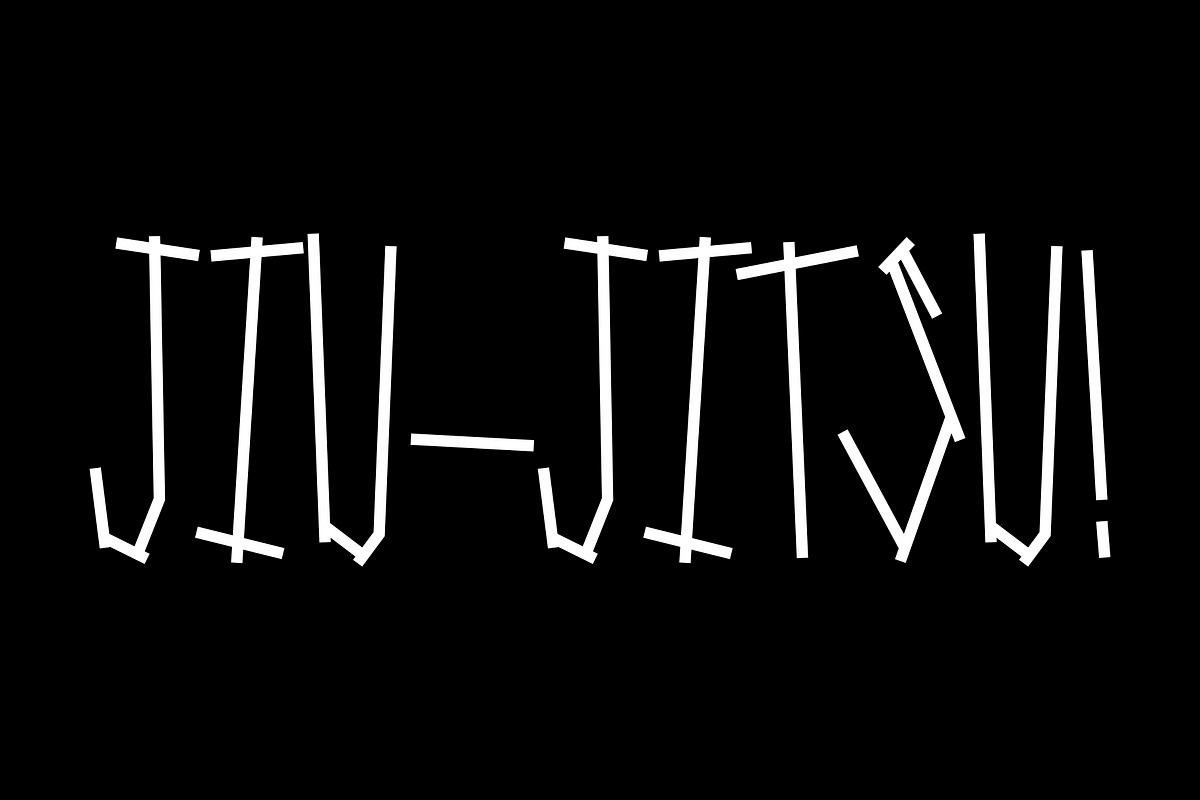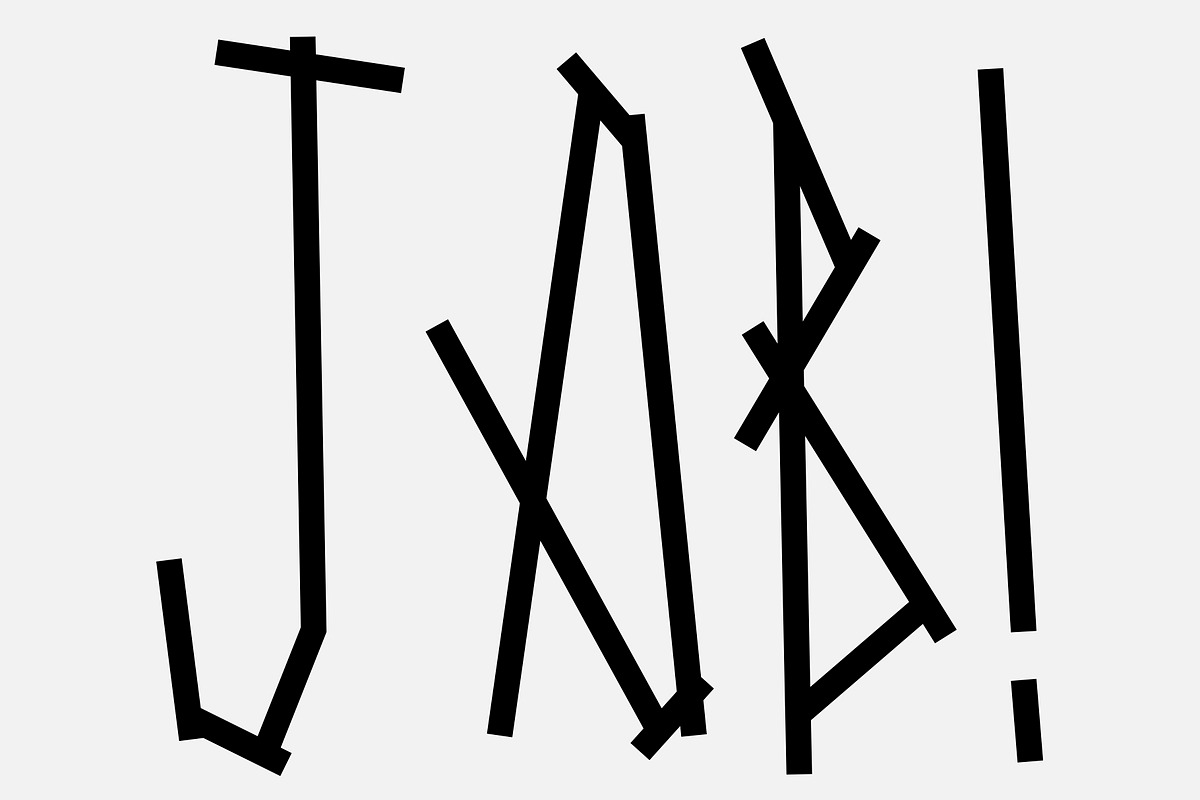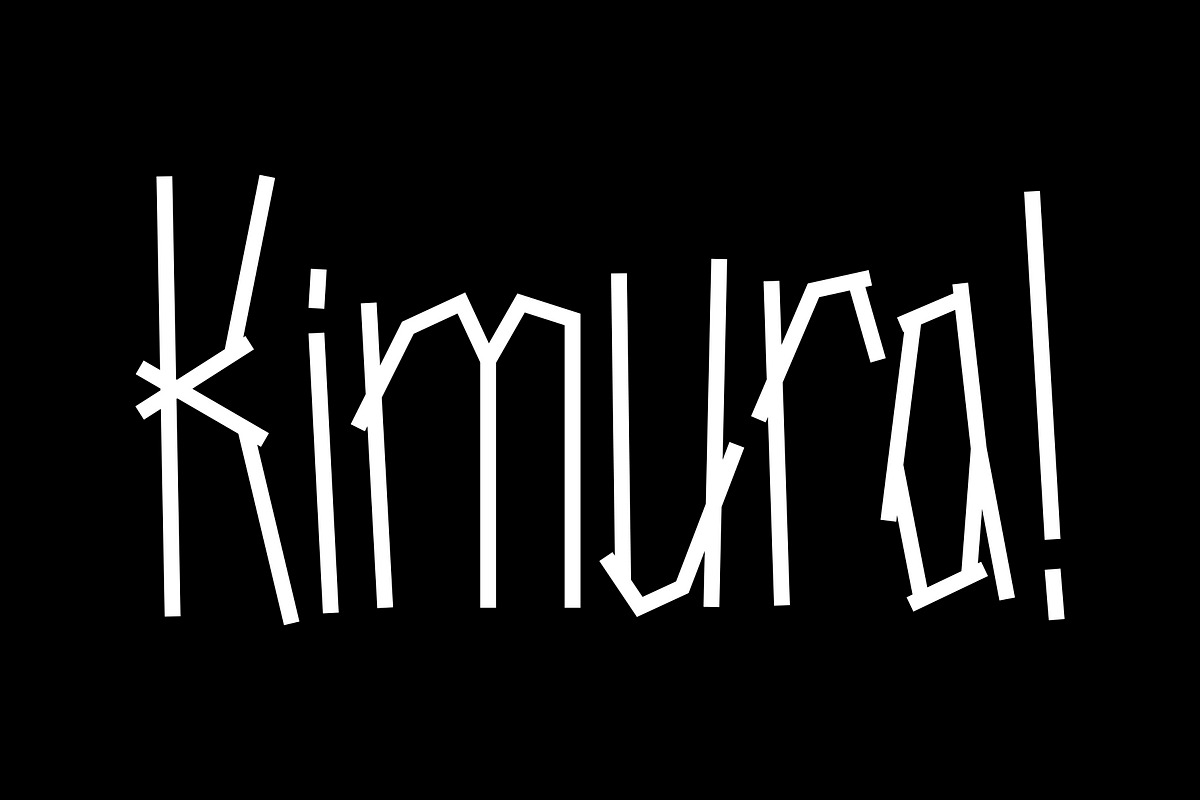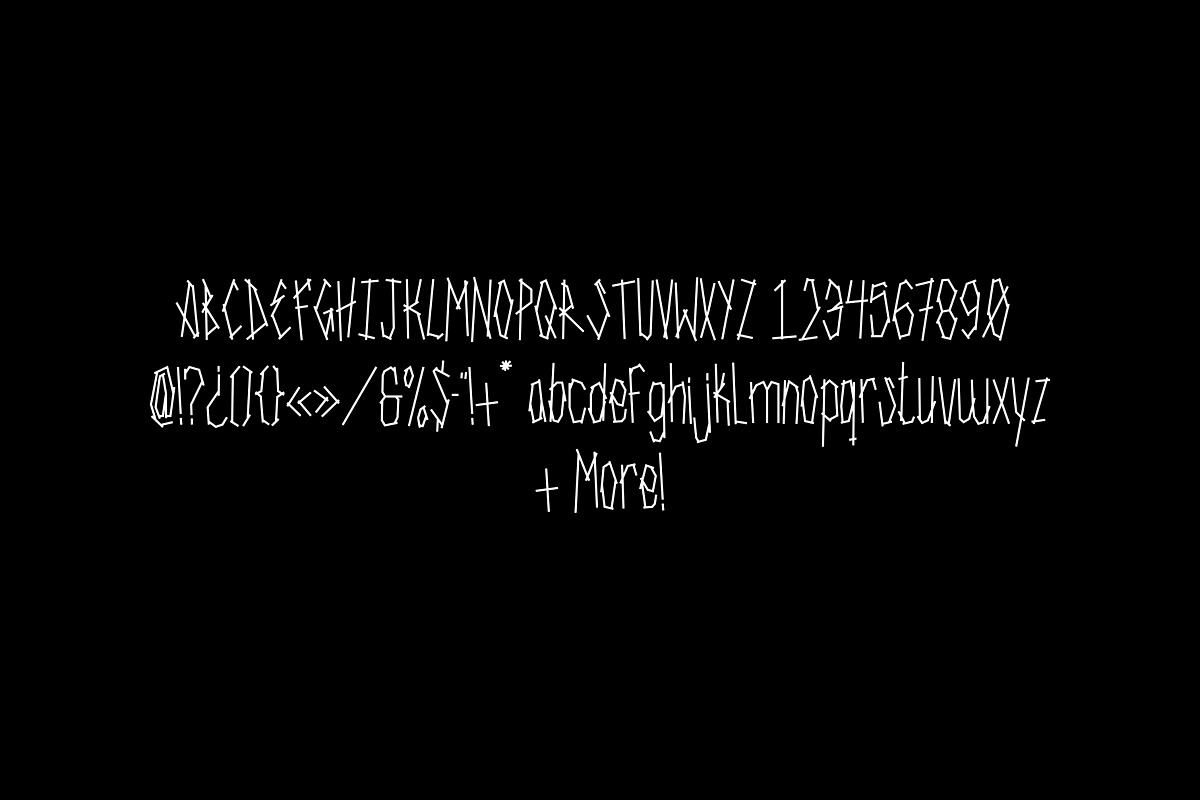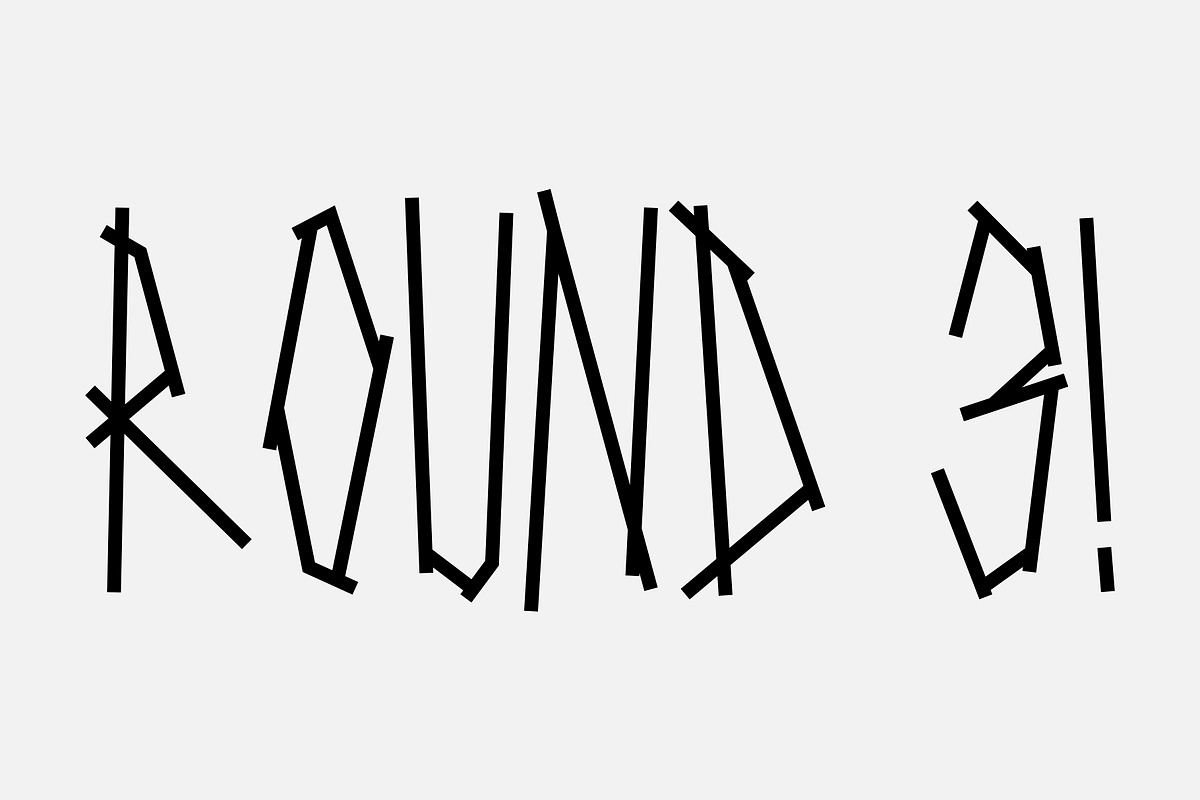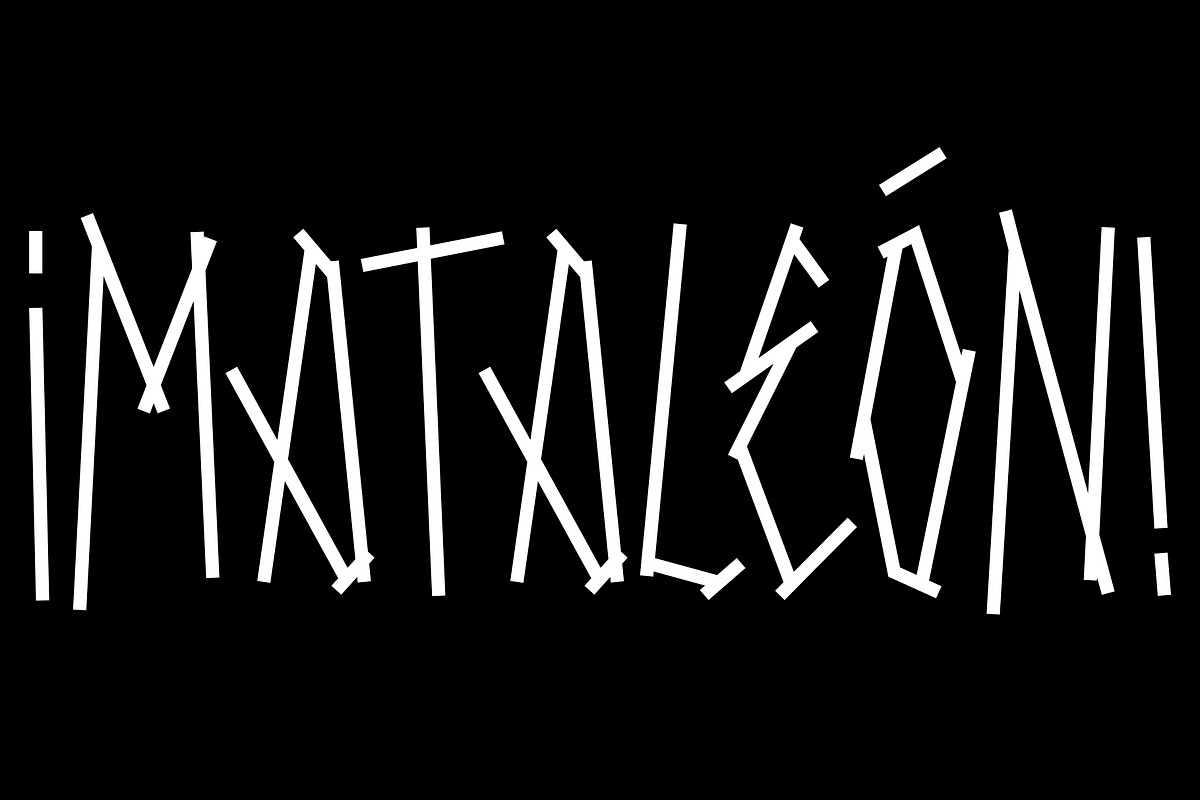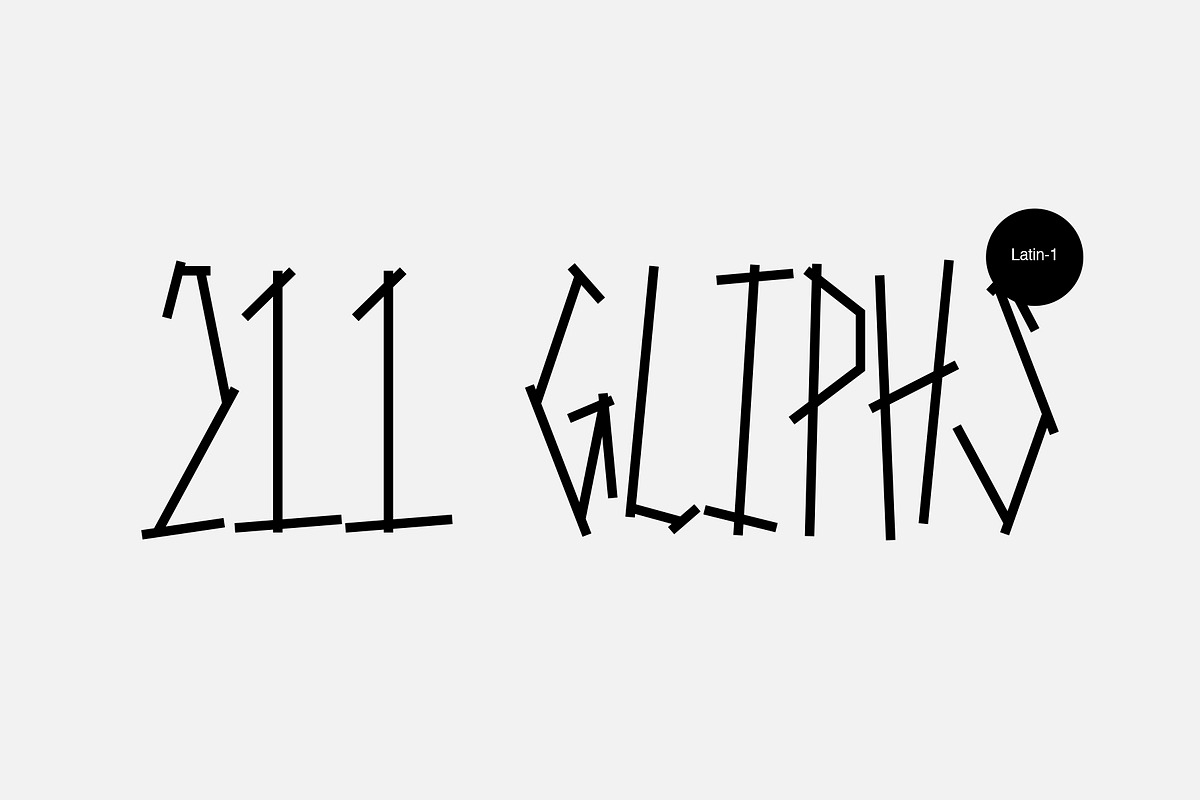
Srg®-Fighter's tape font
A geometric and experimental font inspired by the tape used on combat sports.
Specifically designed for display use, great for titles, logotypes, monograms and short texts, it includes 211 glyphs, ASCII / ISO 8859-1 (Latin-1)